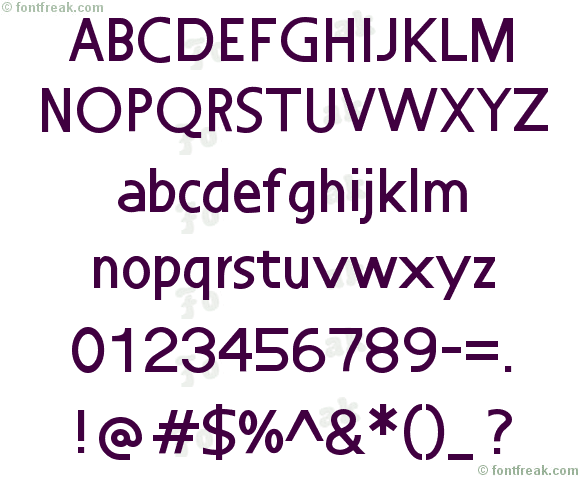
Nu World
Nu World Tight
About Nu World
Nu World by Martin Pfeiffer is a distinctive display font that captures a sense of modernity and creativity. Released in 1997, this freeware typeface is characterized by its tight spacing and clean lines, making it an excellent choice for various design projects. The font exhibits a balanced stroke weight, which ensures readability while maintaining an engaging visual presence. With its straightforward yet stylish design, Nu World stands out as a versatile asset for graphic designers, small business owners, and content creators alike.
The visual characteristics of Nu World are marked by a harmonious blend of geometric forms and subtle curves, lending a contemporary feel to the typeface. Its lack of excessive decorative elements allows for a clean and professional appearance, making it suitable for both digital and print applications. The font’s uniformity in spacing enhances its legibility, making it an ideal choice for headings, logos, and other prominent text.
Nu World is particularly well-suited for use cases such as restaurant menus, where clarity and style are paramount; movie posters, where a bold statement is essential; and branding materials, where a modern aesthetic can elevate a company's image. Additionally, it can be effectively utilized in event invitations, providing a contemporary touch that appeals to a broad audience.